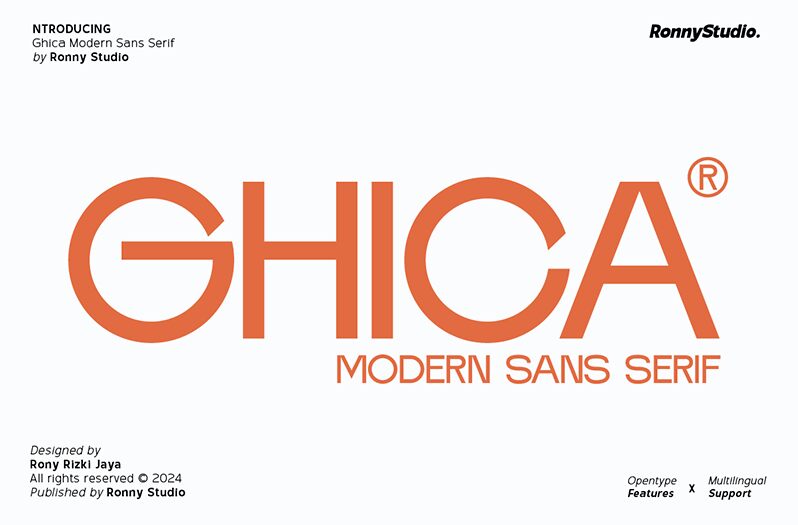
Ghica font, designed by Ronny Studio, is a striking sans serif typeface that captures attention with its bold and modern aesthetic. The expanded style creates a sense of openness and clarity, making it highly readable. Its clean lines and geometric shapes lend a contemporary feel, ideal for digital and print projects alike.
Whether you're designing eye-catching headlines or sleek branding materials, the Ghica font's versatility shines through. Perfect for creative professionals seeking a free font download that combines style with functionality, Ghica is suitable for logos, web design, editorial layouts, and more.